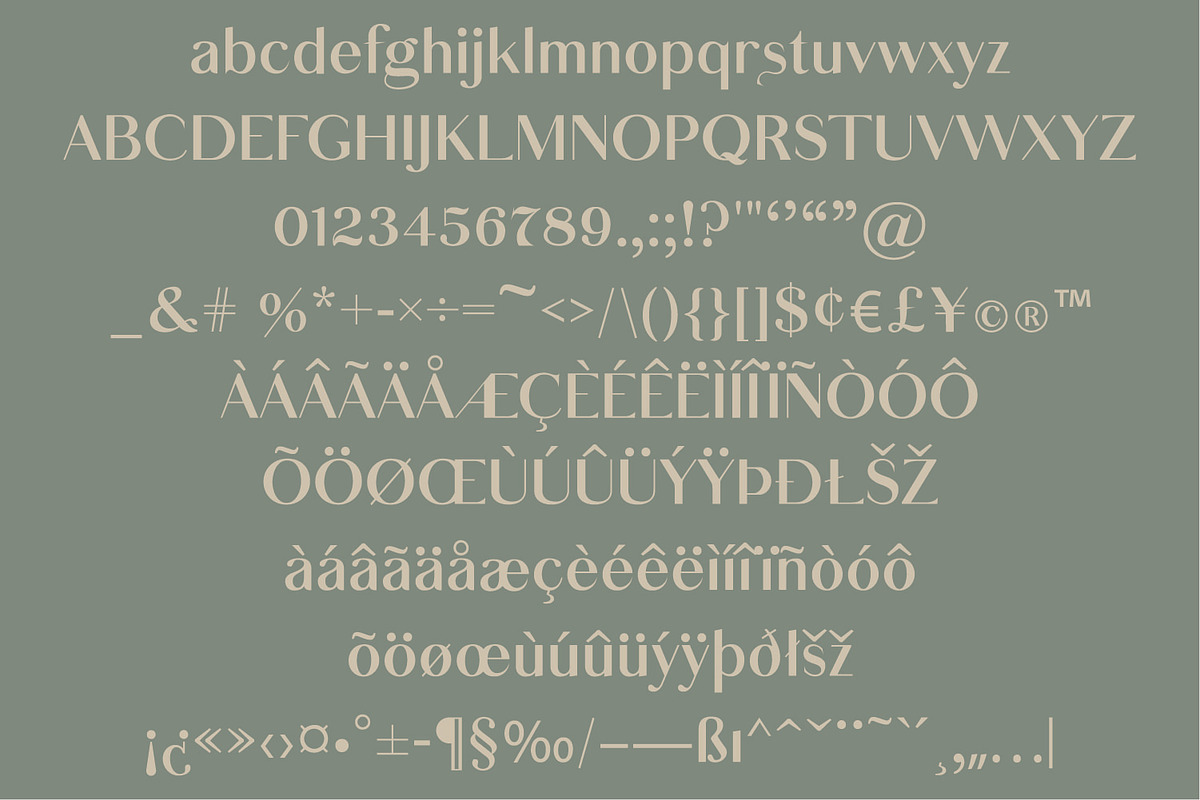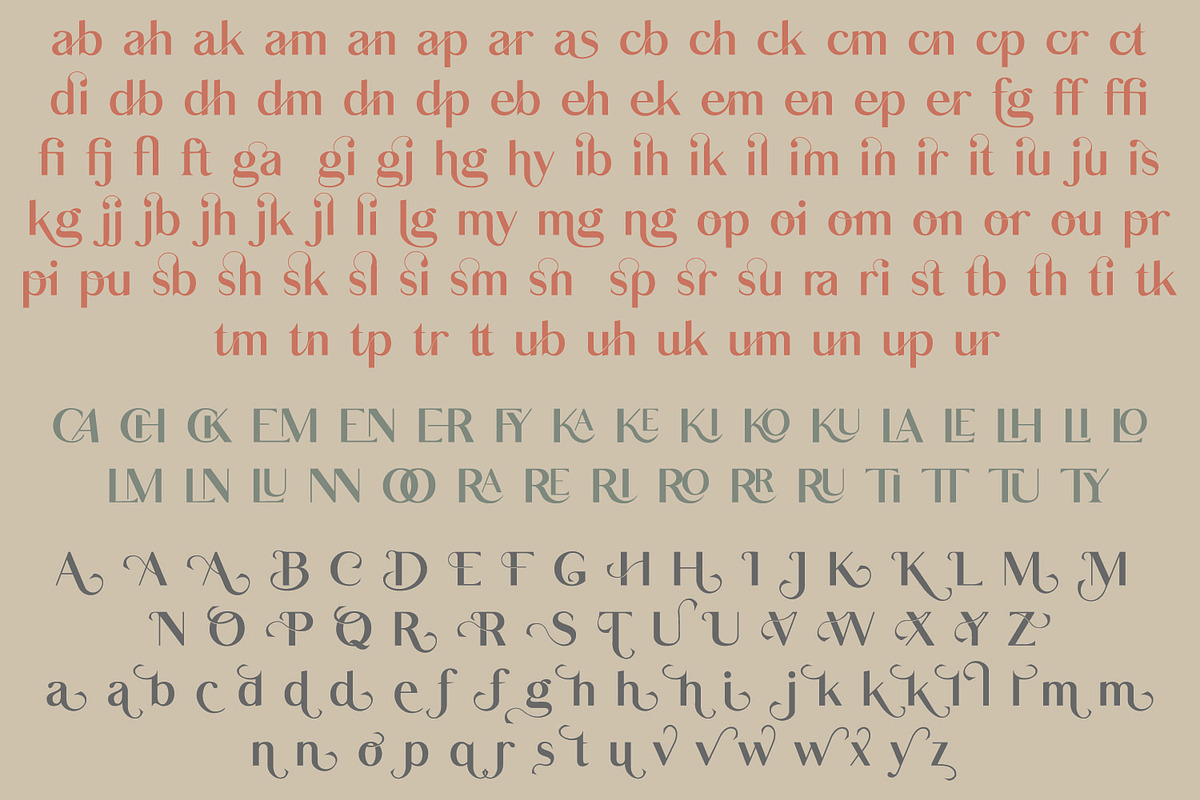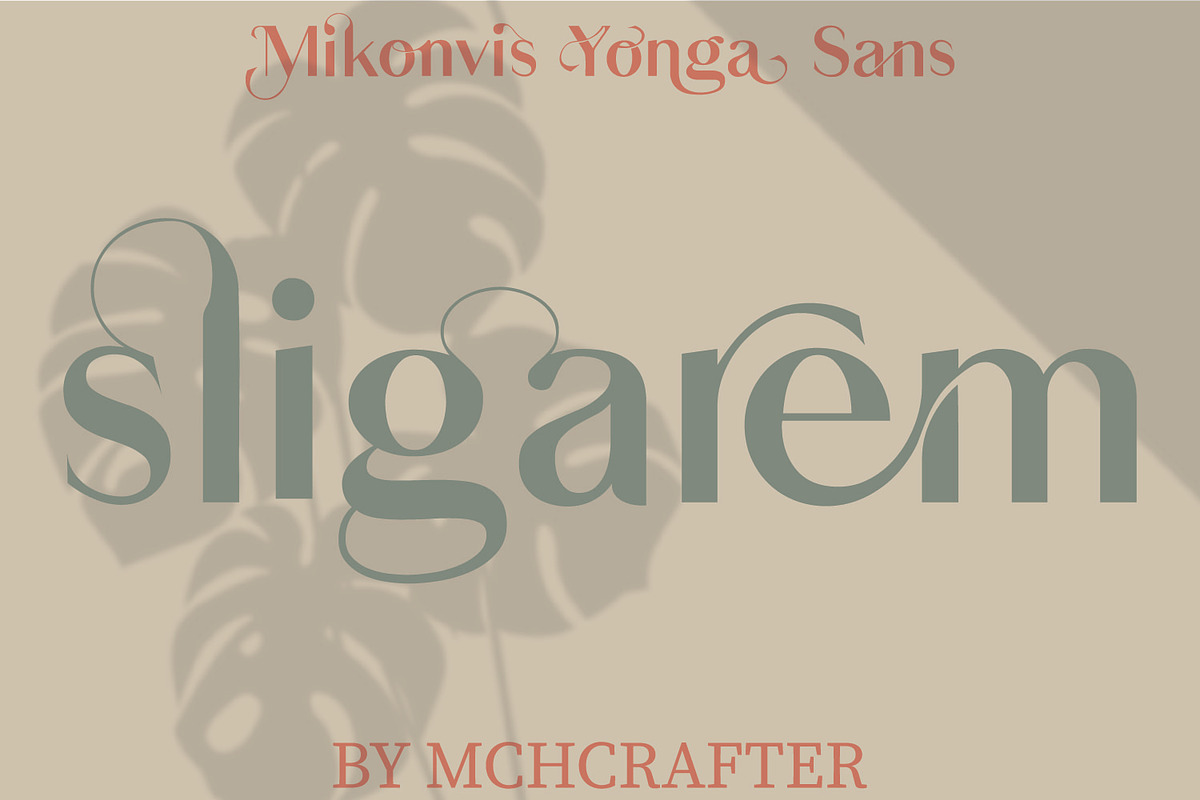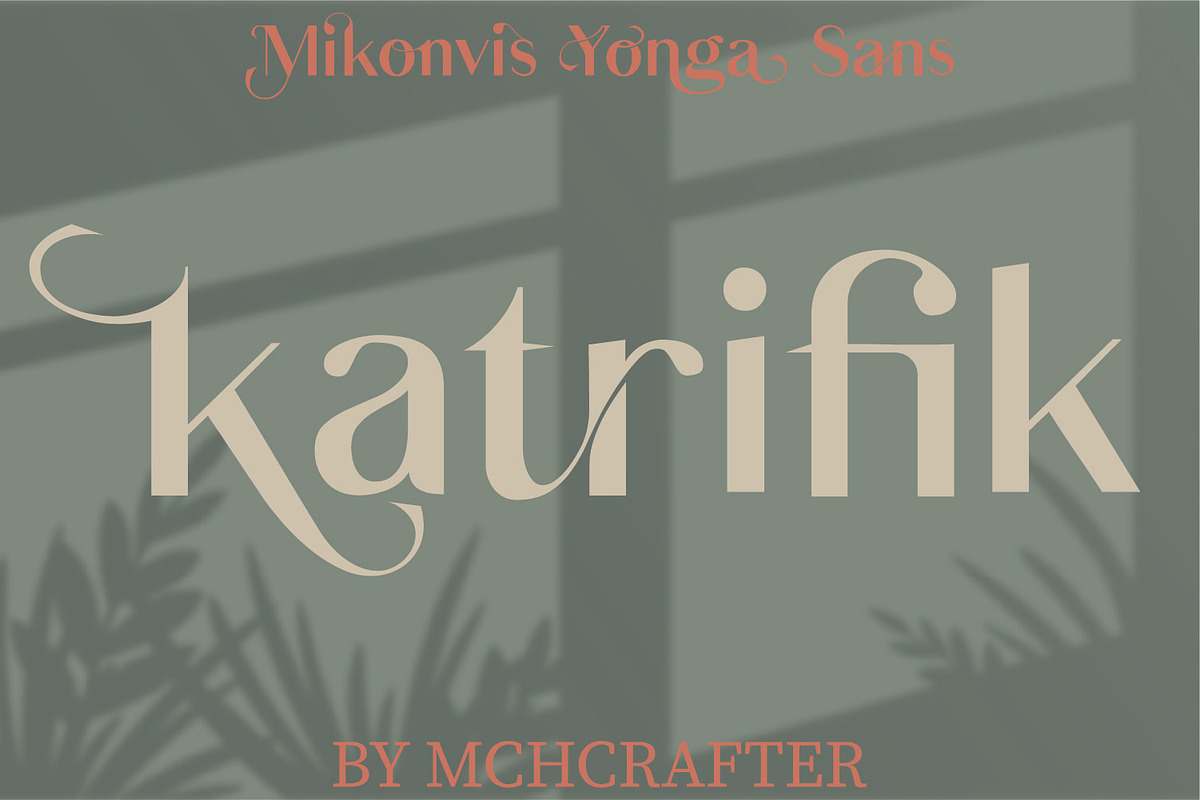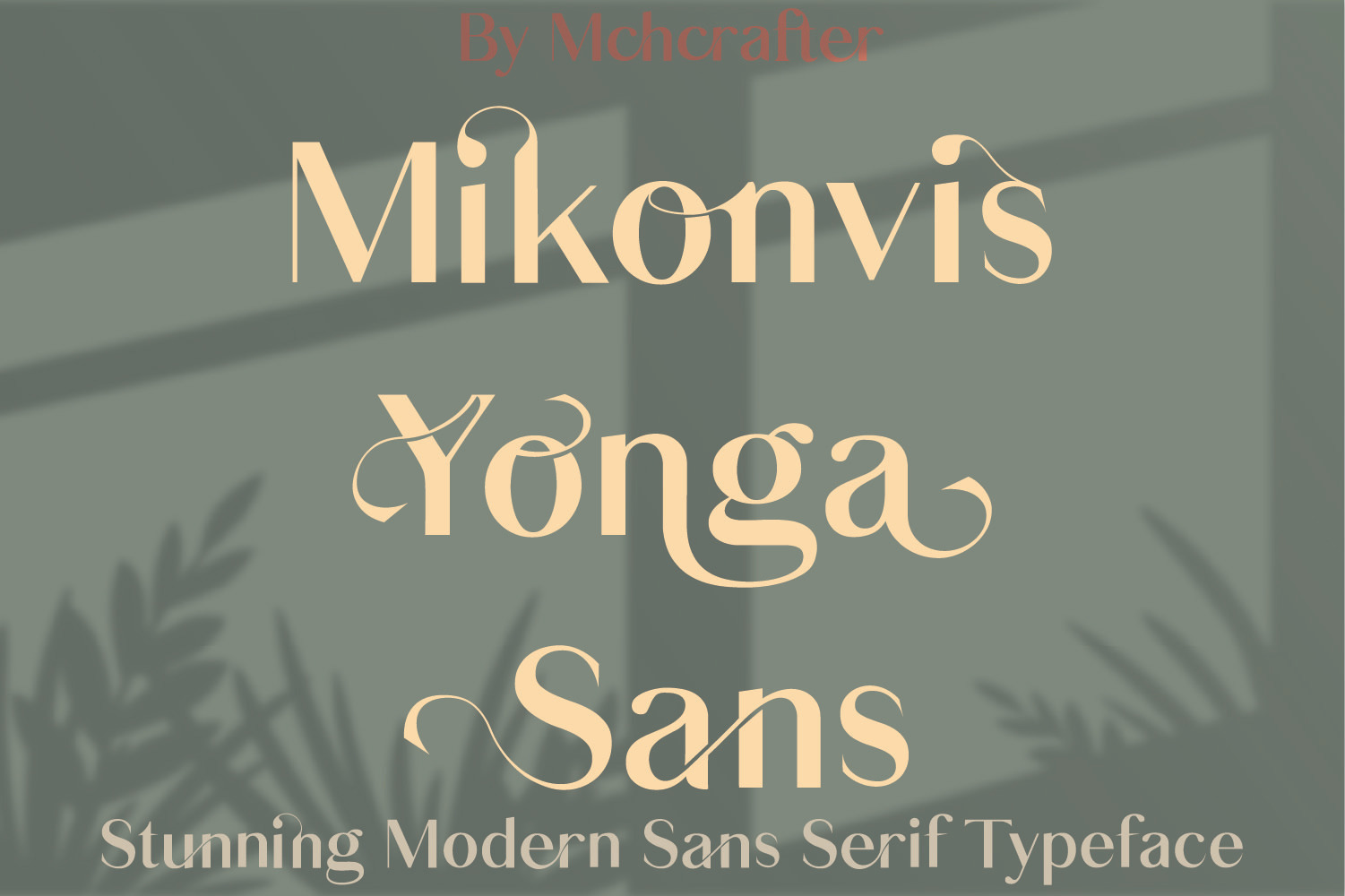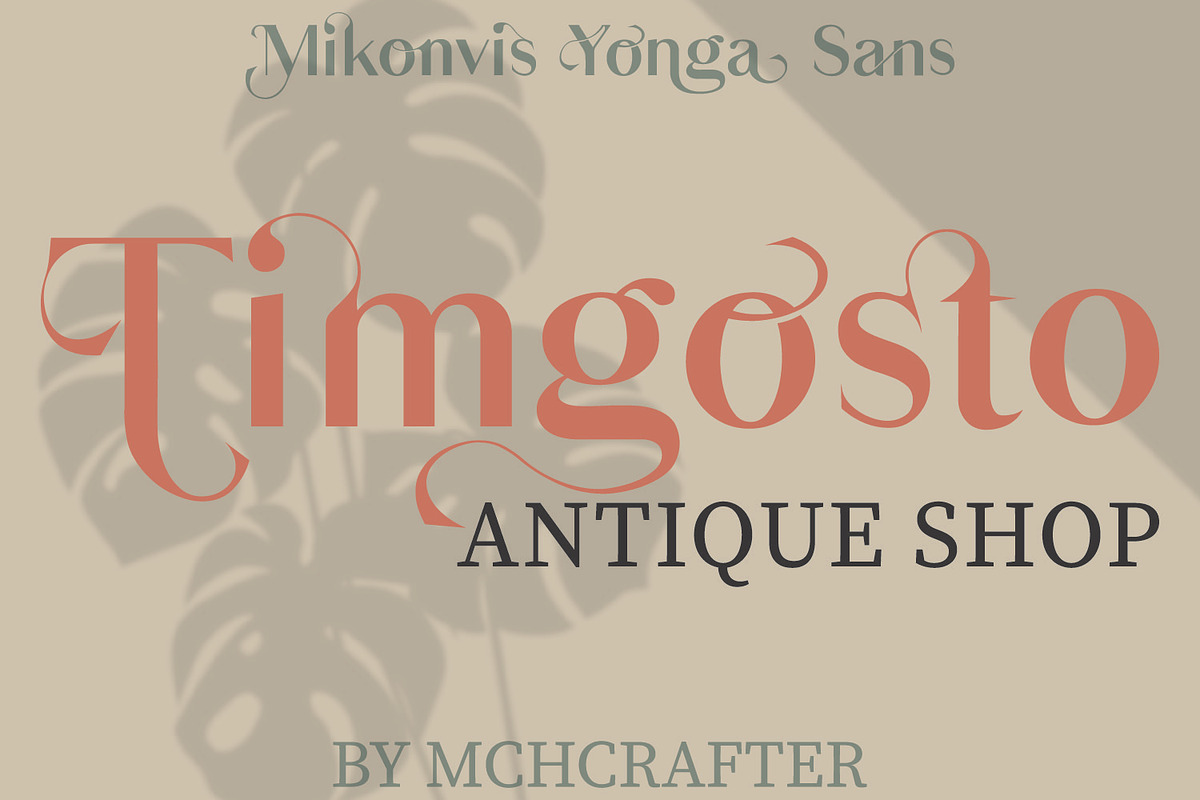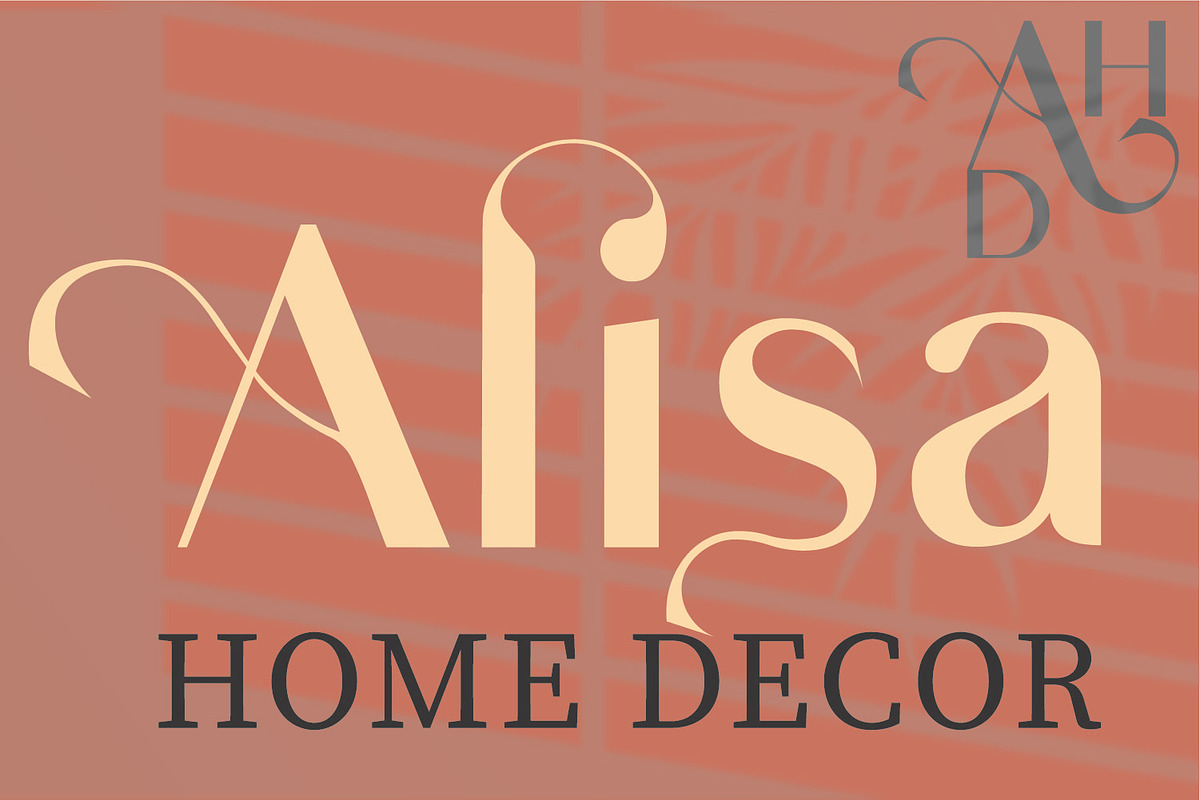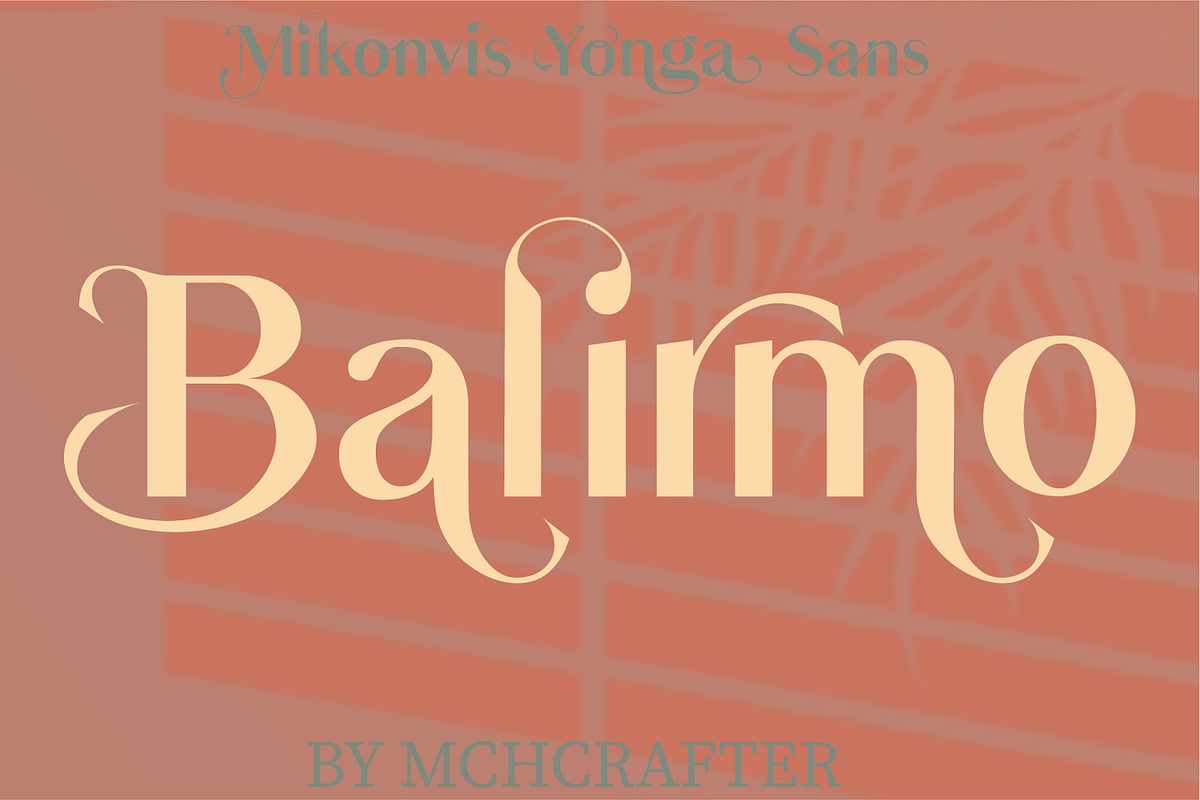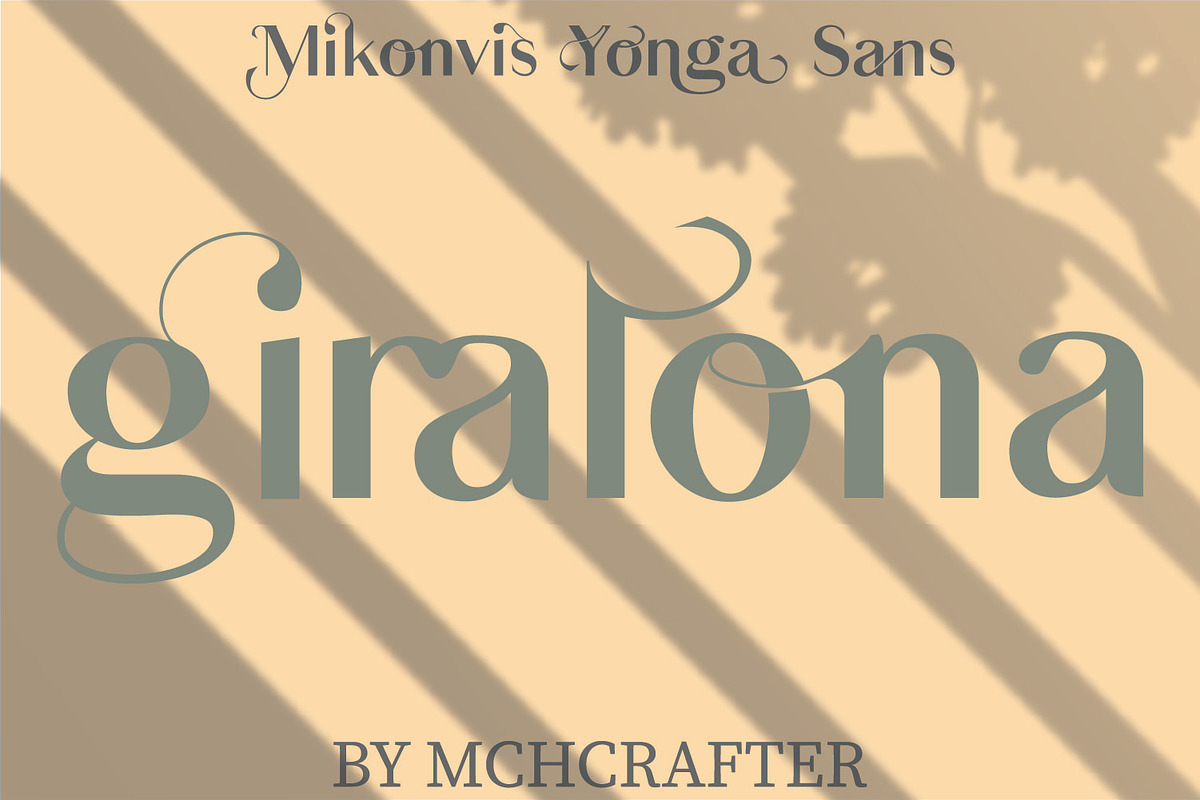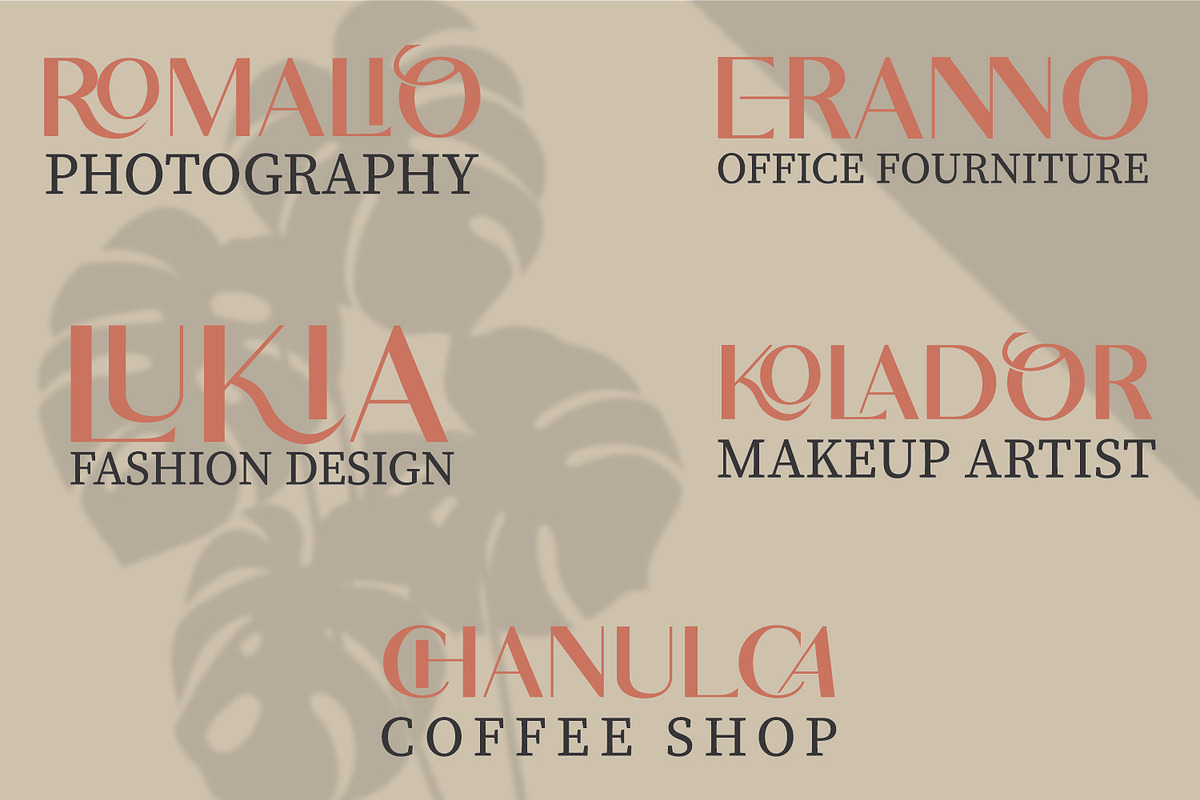
Mikonvis Yonga Sans Serif Typeface
Mikonvis Yonga Sans is a Modern Stylistic Sans Serif typeface
A new Sans serif that we created specially for branding needs, with extra ligatures and alternates in a unique shape just to add value to your brand. It so nice to leverage designer or product owner that need solutions to make their design look more stylish and modern. And specially for Mikonvis Yonga Sans font, We prepared all the ligatures, and the alternates characters to help you create unlimited variations for your creative needs.
Mikonvis Yonga Sans includes:
- All uppercase & lowercase letters
- All numbers 0-9 & Punctuation
- Multiligual Letters